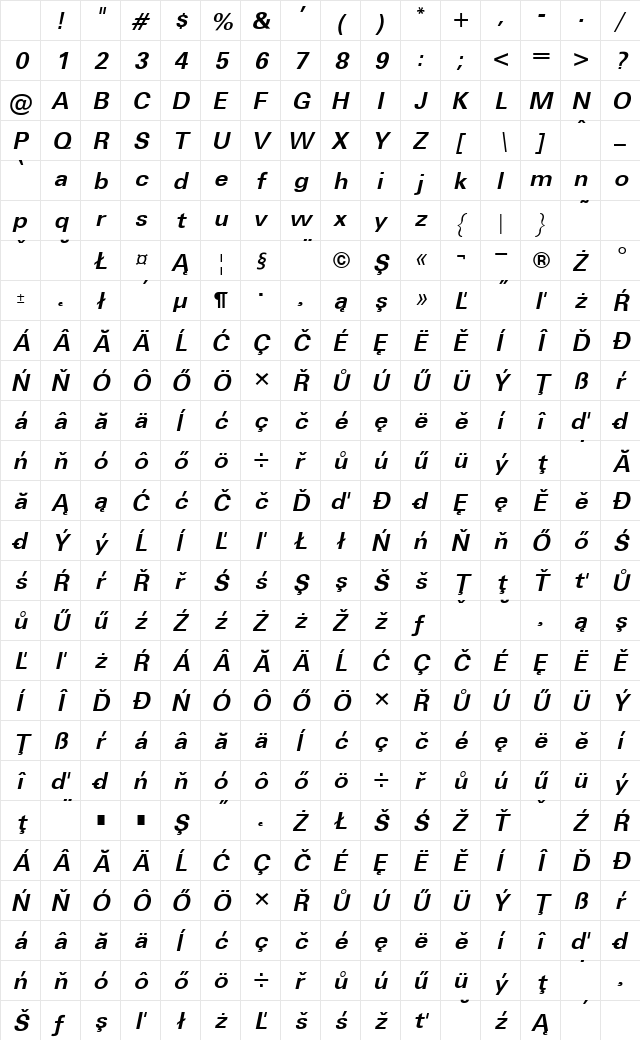
UnvEe is a composed and adaptable typeface that performs quietly and consistently across a wide range of design contexts. The slanted form adds forward momentum and visual energy. Its bold stroke weight gives it real presence on the page.